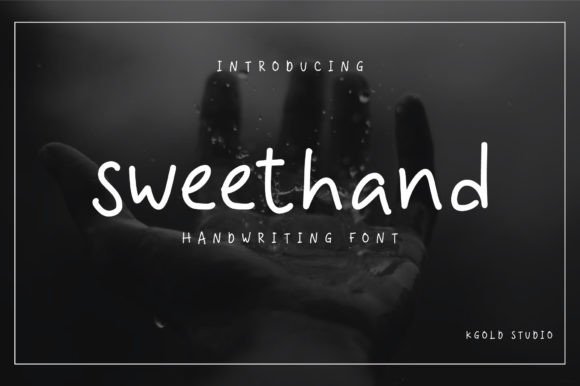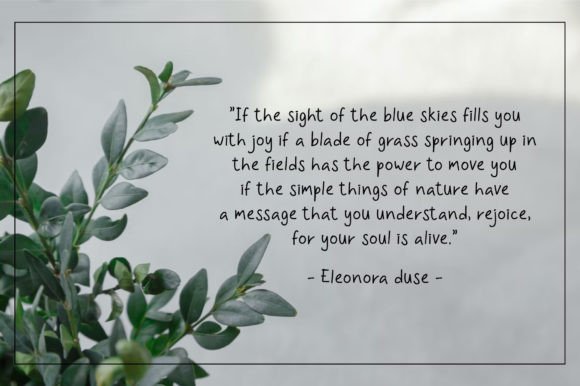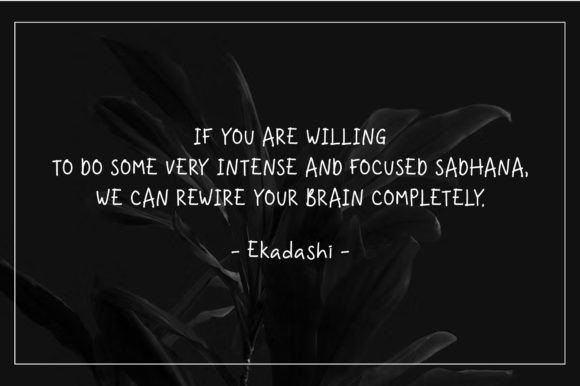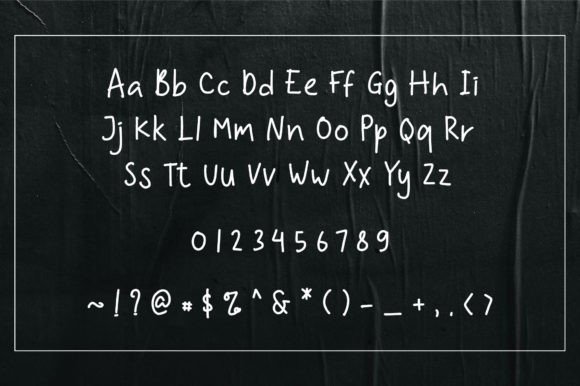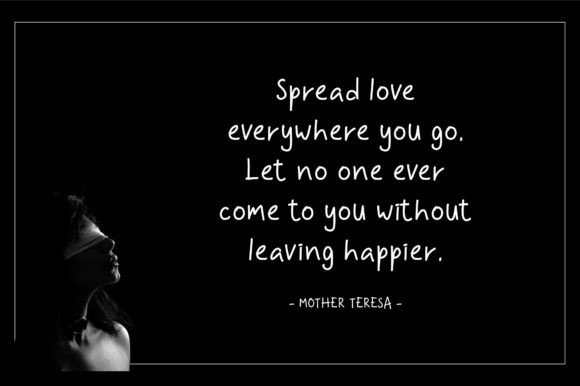
Sweethand Font
What Is Sweethand Font?
Sweethand Font is a simple and quirky handwritten typeface designed to bring a casual, relaxed feel to any project. Each letter has friendly curves and a natural flow that make it approachable and fun. Because of its informal style, this font is ideal for designs that need a personal, laid-back touch.
You will see how easily Sweethand makes your projects feel warm and engaging.
Sweethand is a versatile font you can apply across many creative contexts. For example, it’s perfect for greeting cards and invitations. The playful strokes make your messages feel personal and unique.
In addition, it works beautifully for social media graphics and quotes. Whether you create posts for Instagram, Pinterest, or Facebook, Sweethand adds a friendly, eye-catching style.
You can also use it for crafting projects, DIY labels, and handmade products. The relaxed handwritten look feels authentic and charming.
When you design logos and branding for casual businesses or lifestyle brands, Sweethand helps you stand out with approachable personality.
Moreover, it’s great for posters, website headers, packaging, and even fun t-shirt designs. Even minimalist layouts look more interesting with this font.
Why Should You Choose Sweethand Font?
There are many reasons to consider Sweethand for your next project. First, it’s easy to read, even with its playful strokes. Whether you use it for large titles or smaller text, every letter remains clear and balanced.
Also, Sweethand pairs nicely with clean serif or sans-serif fonts. This helps you build modern, cohesive layouts effortlessly.
Because it’s fully PUA encoded, you can access all glyphs and alternates without any extra software. Customizing your text becomes smooth and quick.
Designers appreciate that it looks polished right out of the box, saving time while delivering professional results.
Sweethand Font brings friendliness and personality to every project. For example, when you want your designs to feel casual and approachable, this font makes it simple.
Even basic layouts look more engaging with Sweethand’s relaxed handwritten strokes. Whether you create crafts, branding, or social media posts, your work will stand out beautifully.
Using a premium handwritten font also shows your dedication to detail and creativity. This builds trust with your audience and makes your designs more memorable.
Sweethand Font is more than just a typeface—it’s a creative tool that helps you share ideas with clarity and charm. From cards and crafts to logos and social content, this font adapts easily and leaves a lasting impression.